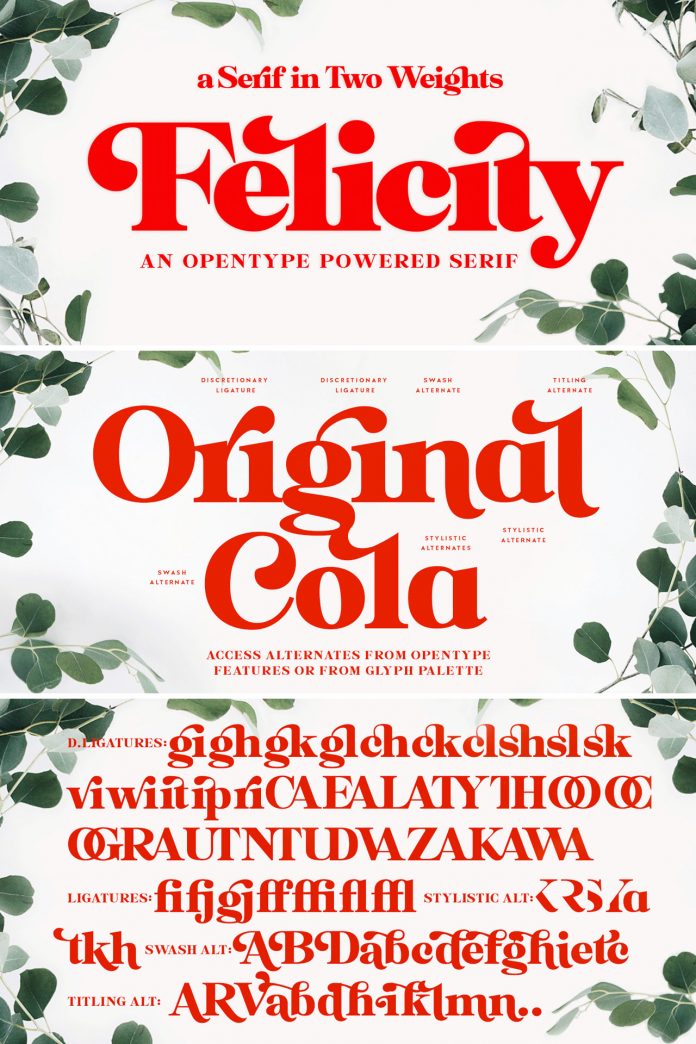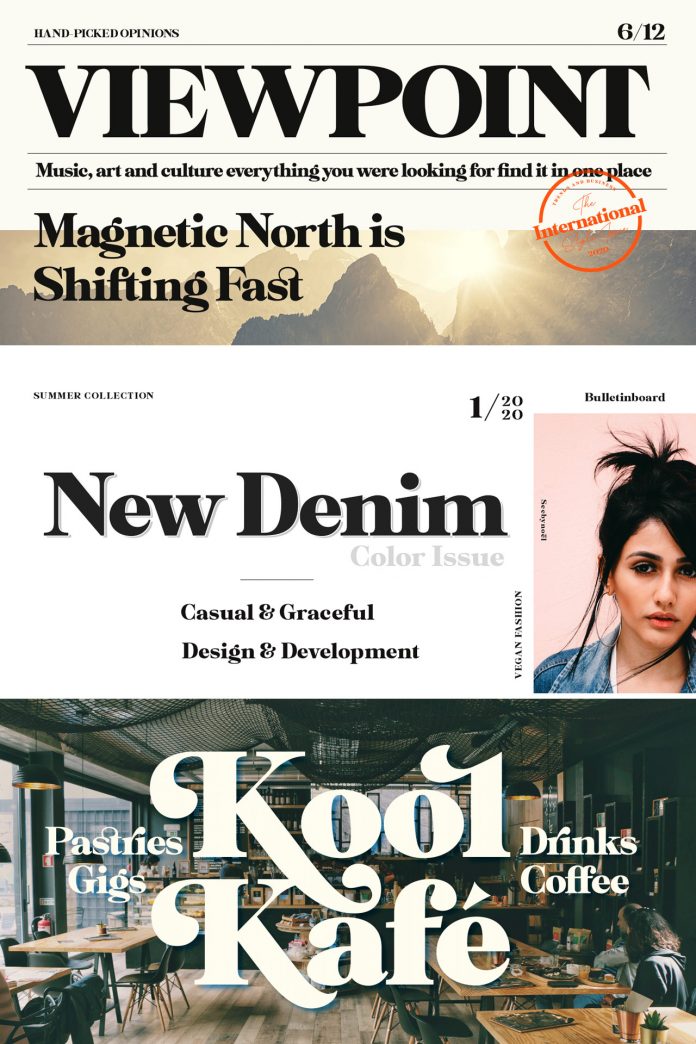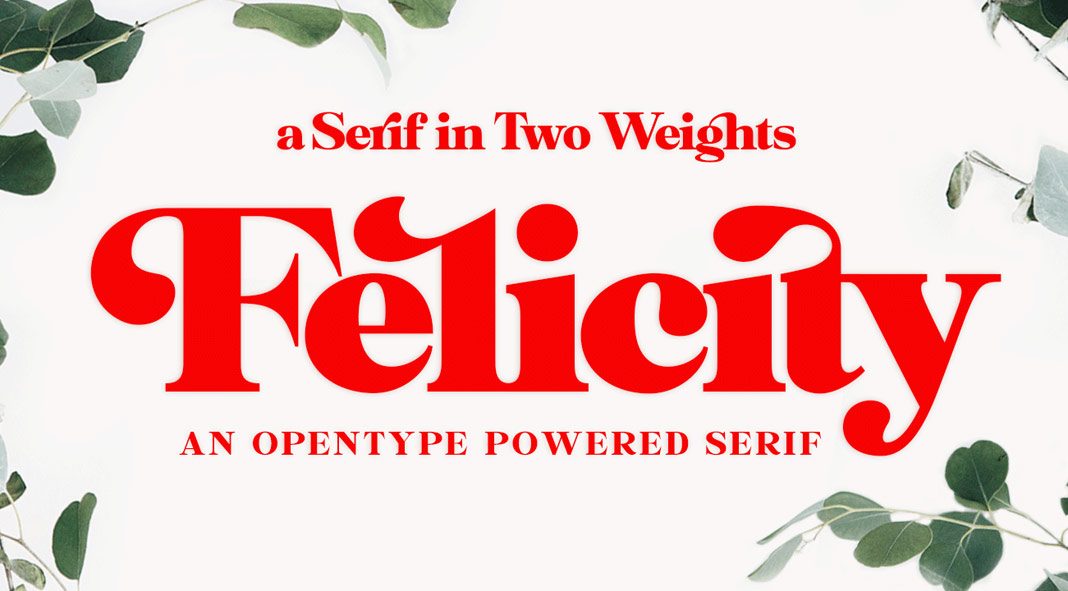
Felicity font, an elegant serif typeface that comes in two styles.
Designed by Emil Bertell of foundry Fenotype, Felicity is an elegant display serif font. The two styles are accompanied by many OpenType features including Discretionary Ligatures, Stylistic, Titling, and Swash Alternates. The typeface also comes with a range of ornaments, which are available from the character window.
Felicity is also equipped with Contextual Alternates and Standard Ligatures to prevent letters from colliding. Both features are automatically on. The typeface is currently available as a heavily discounted introductory offer. To learn more, just click on one of the following links.